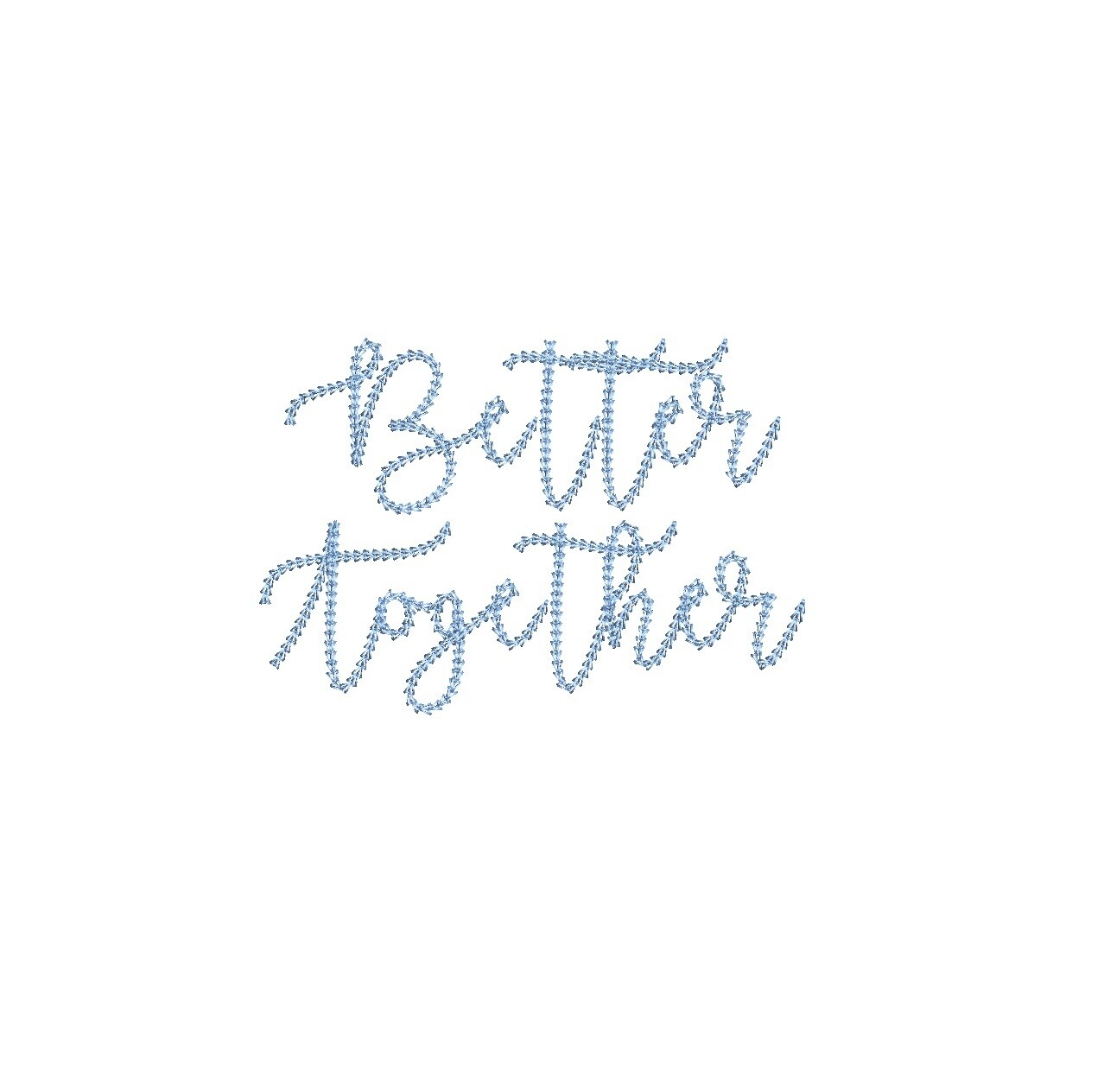
Experience the creative synergy of Better Together Chain Stitch ESA font. Designed to perfection, it seamlessly integrates with Wilcom Studio e4.5.6 and Hatch 3 versions and beyond. Elevate your embroidery with this font's harmonious blend of innovation and artistry. Its intricate chain stitch detailing adds depth and allure to your projects. Enjoy exceptional results that captivate, transforming fabric into a canvas of imagination. Better Together empowers your designs with a timeless appeal, redefining stitching excellence. Elevate your embroidery game and discover the perfect union of technology and creativity. Upgrade to Better Together Chain Stitch ESA font today.